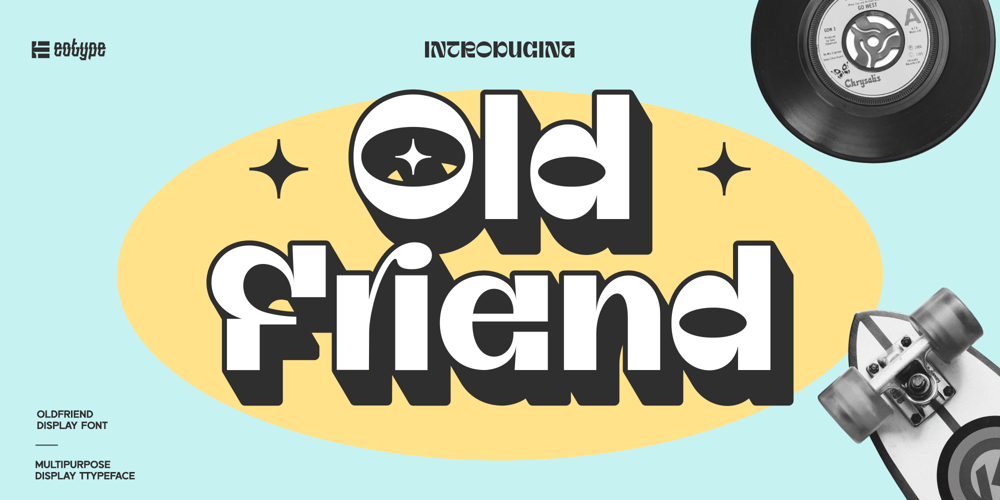
Old Friend Font Family was designed by Fajar Ramadan and published by Eotype. Old Friend contains 1 styles and family package options. OldFriend is multipurpose and unique display font. This font can give your designs a playful and friendly impression. You can use this font for retro, vintage and urban designs.This font comes with alternative style and ligature features which are suitable for various projects such as logos, product labels, posters and many more.